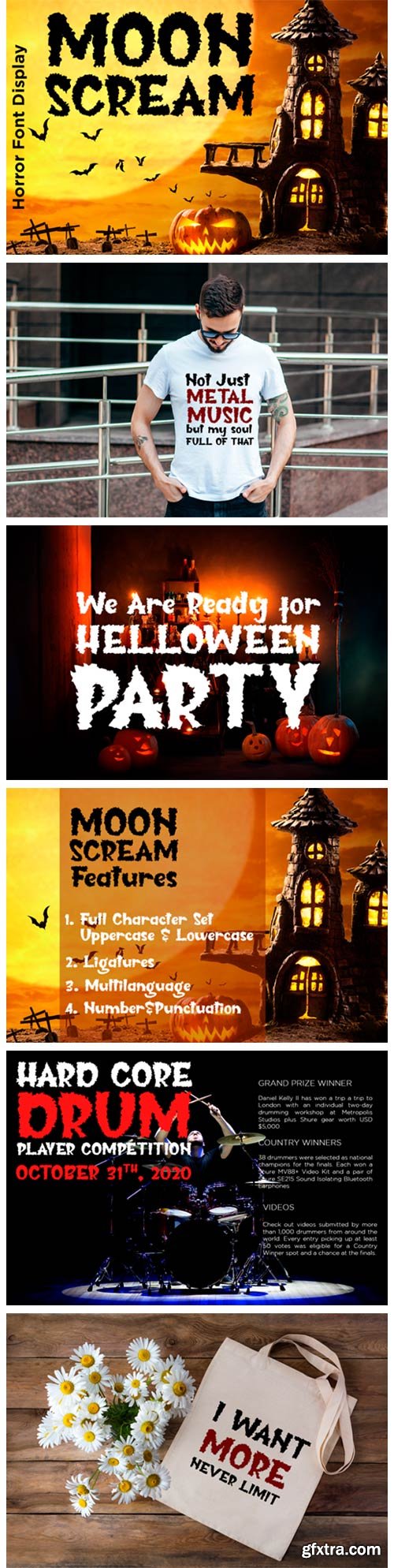
Moon Scream Font
Moon Scream is a chunky lettered and incredibly unique display font. Add this font to your creative ideas and notice how it will make them stand out!